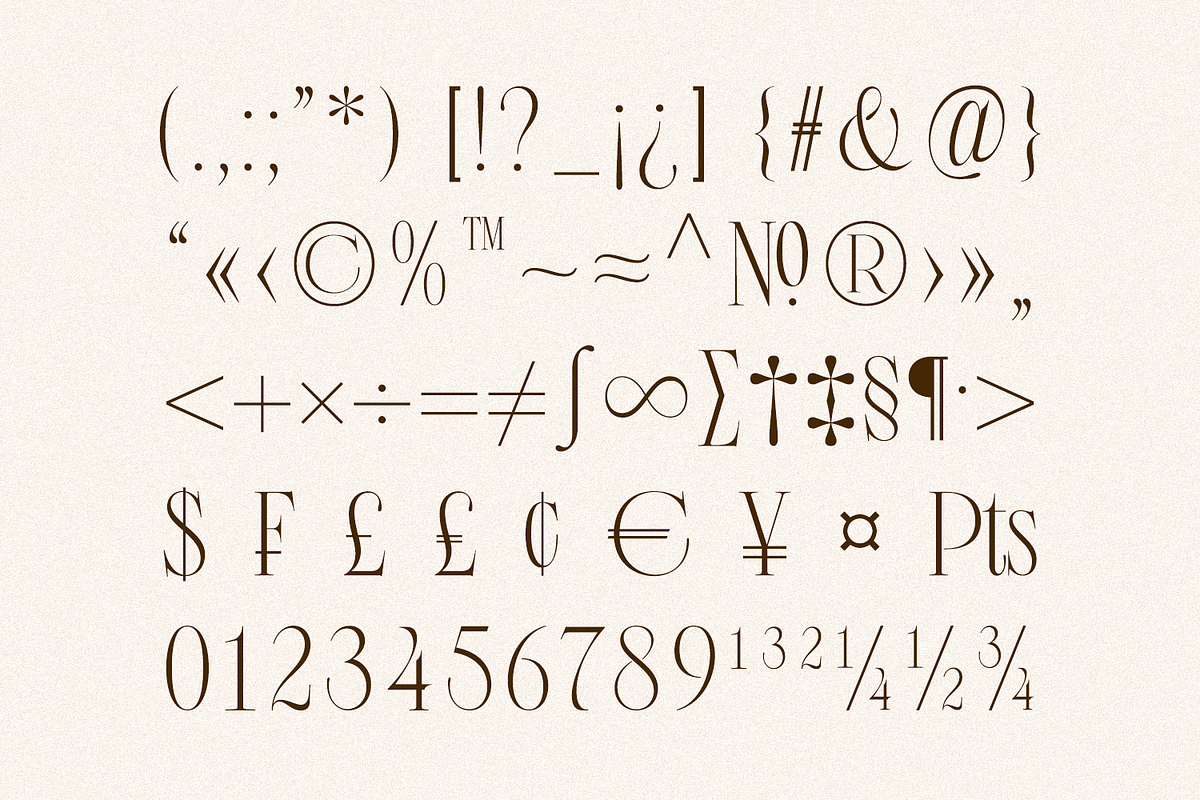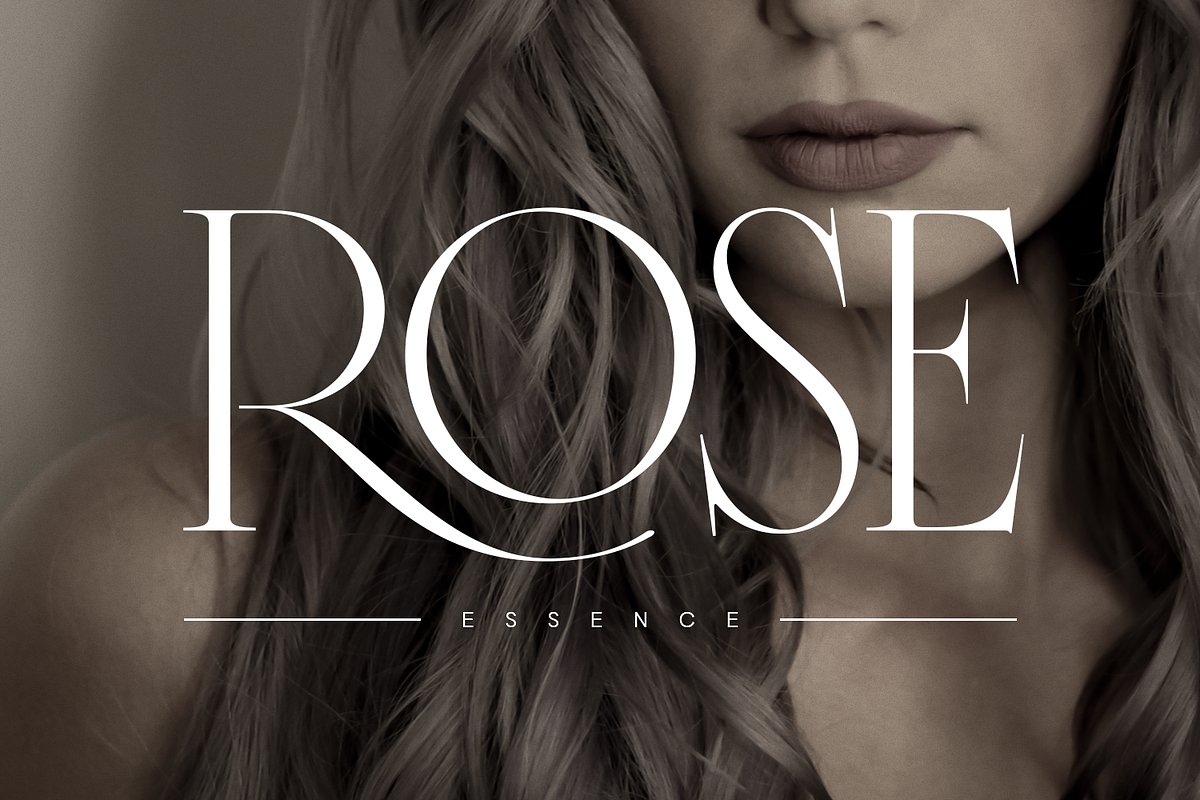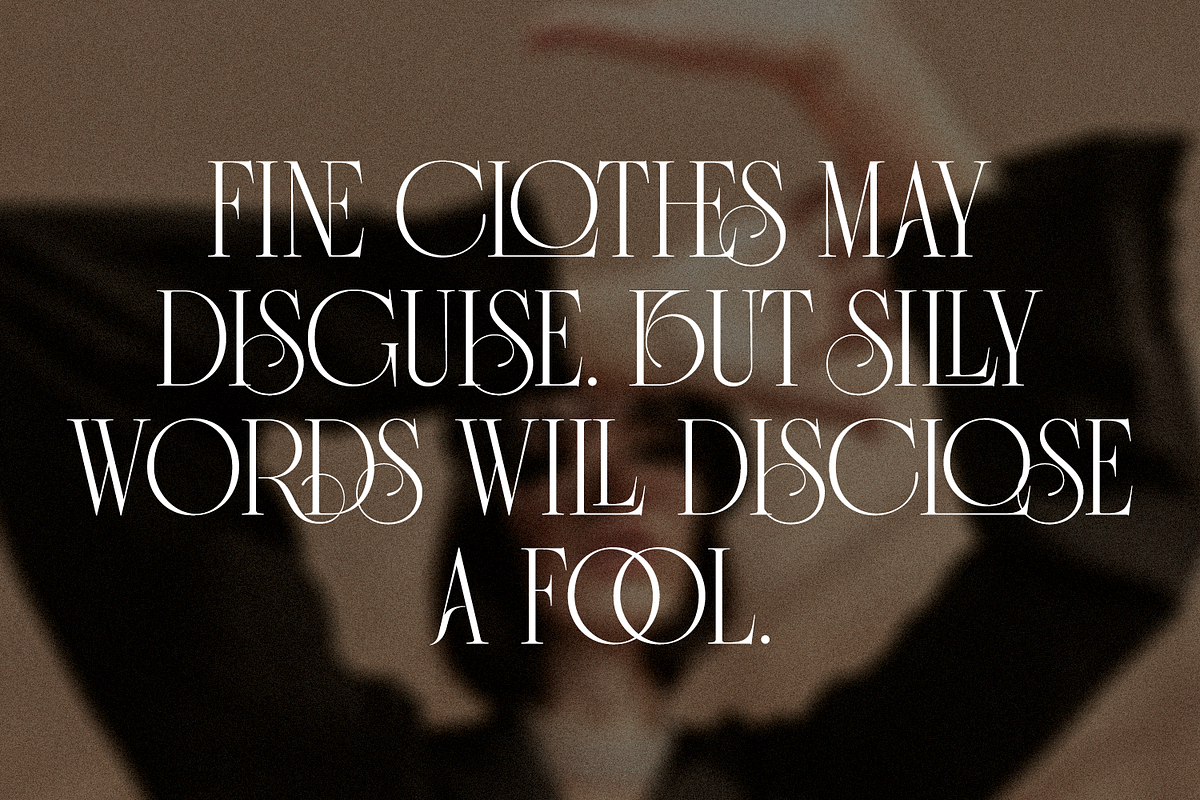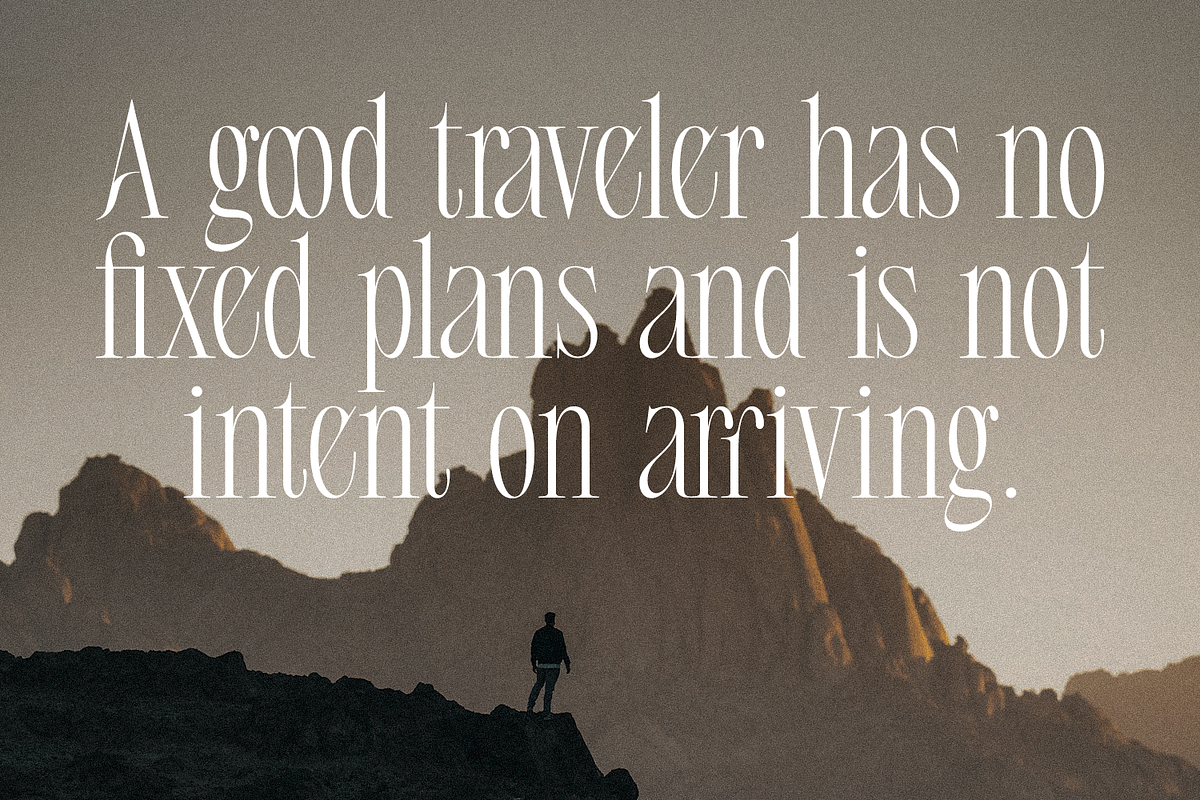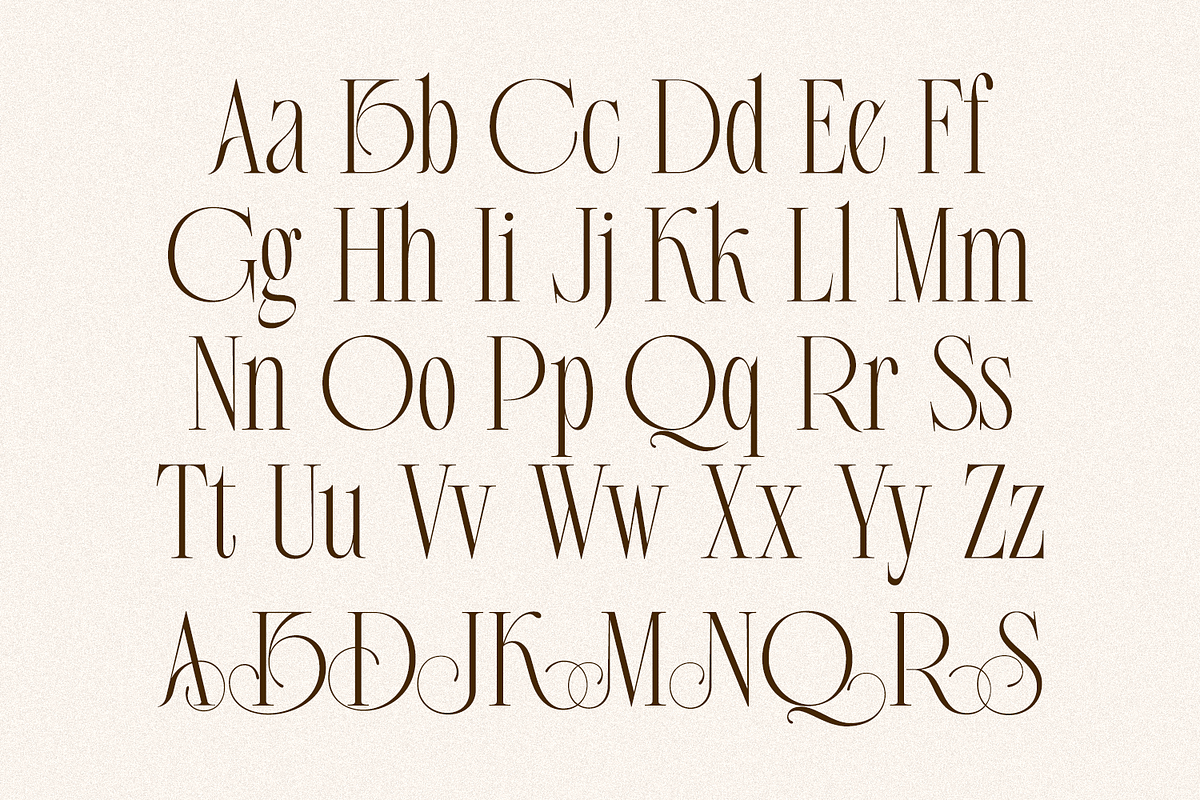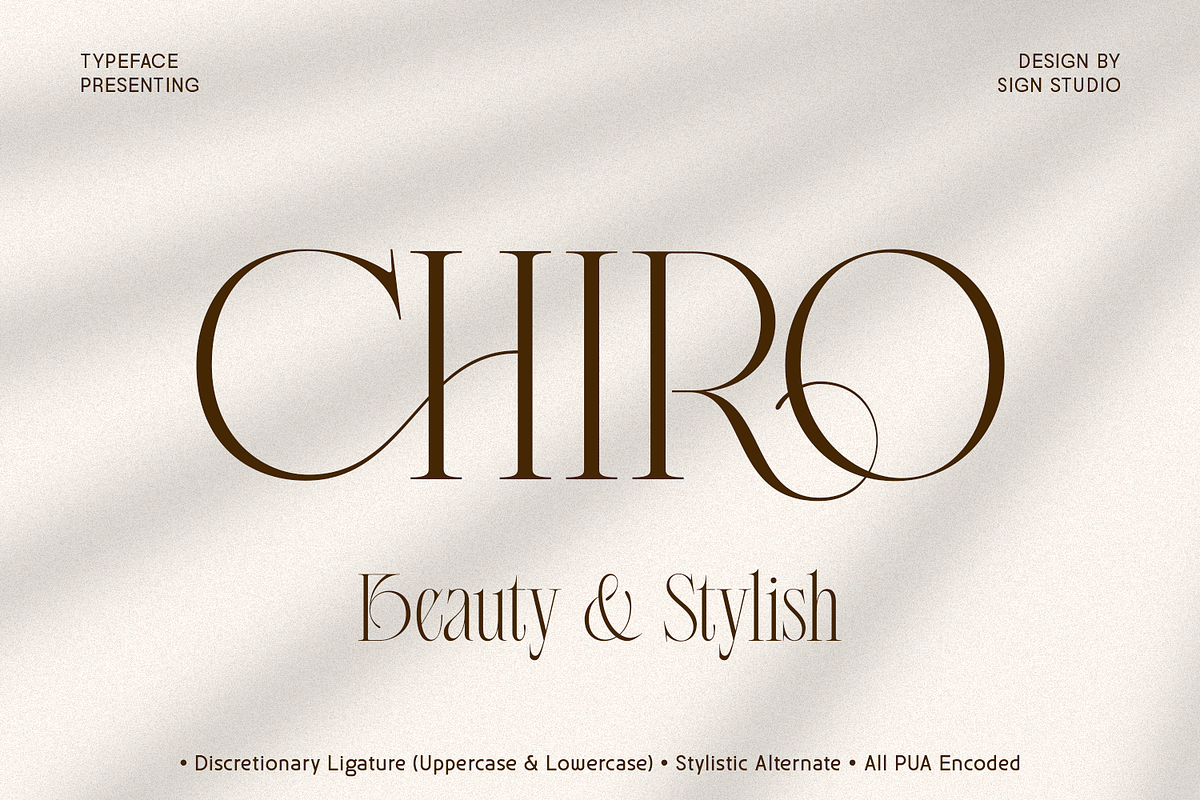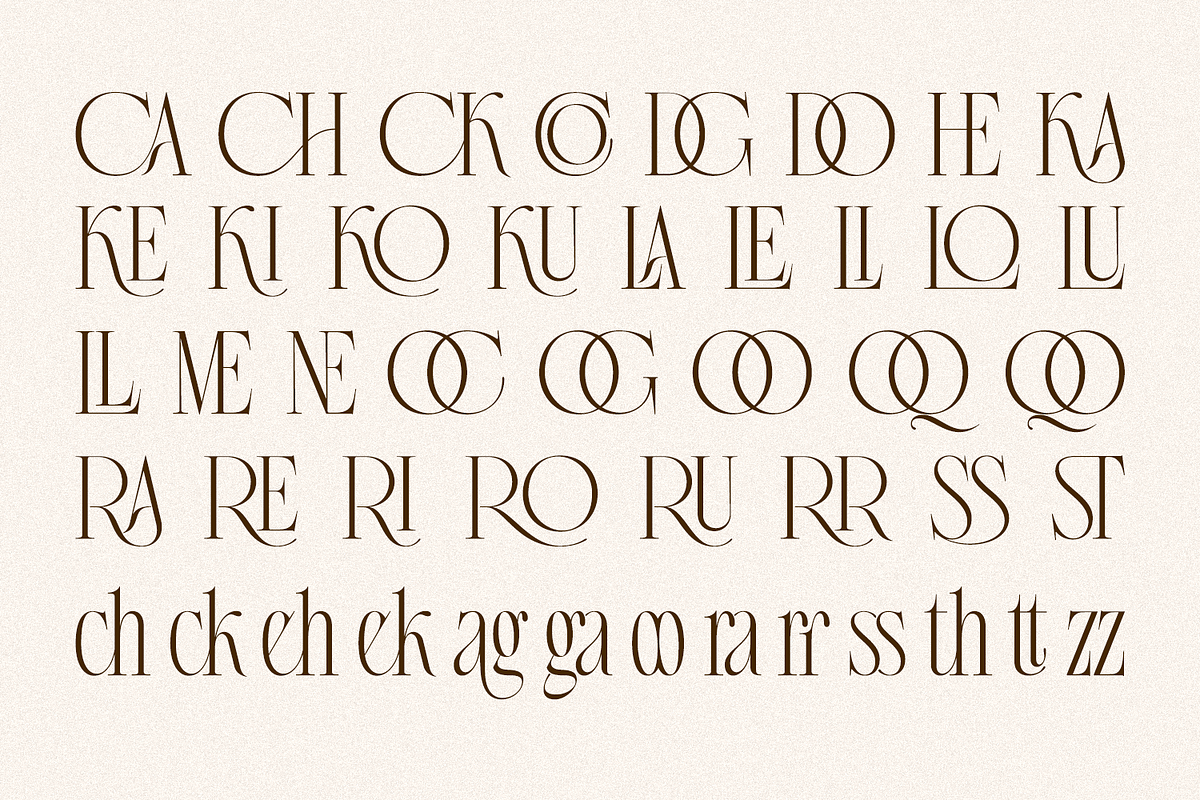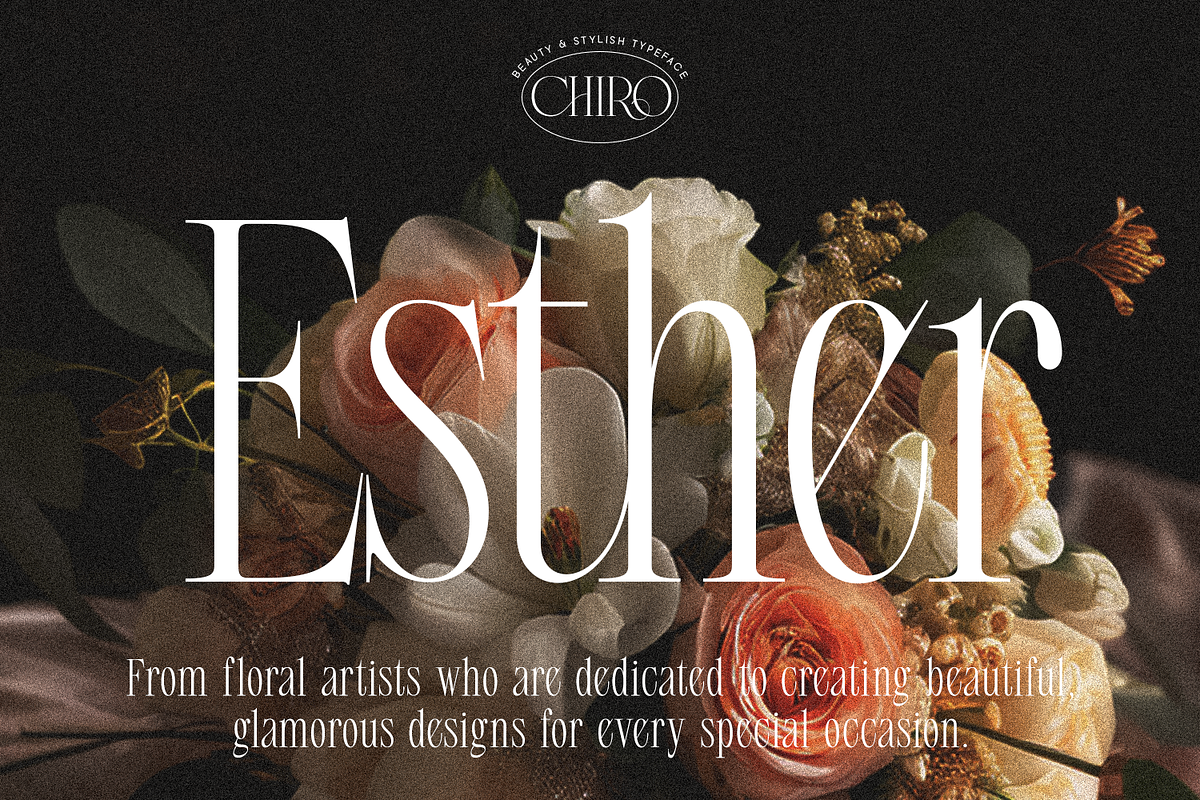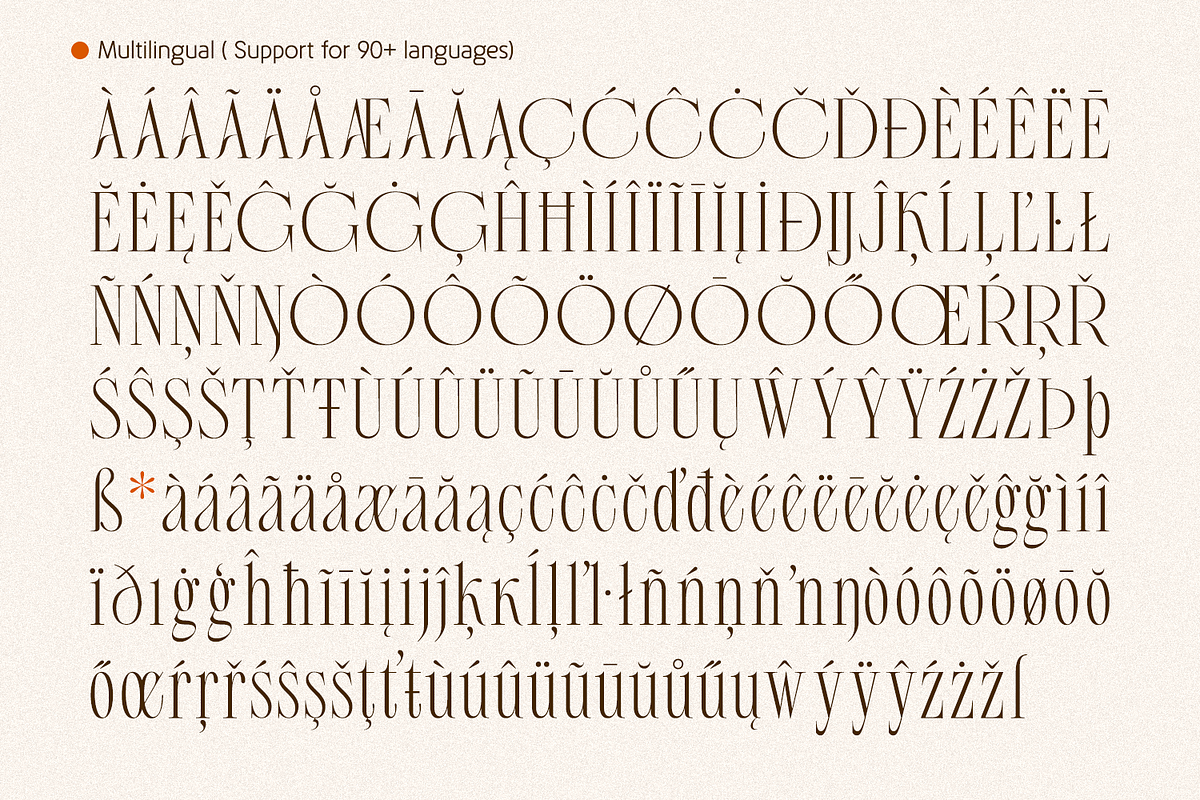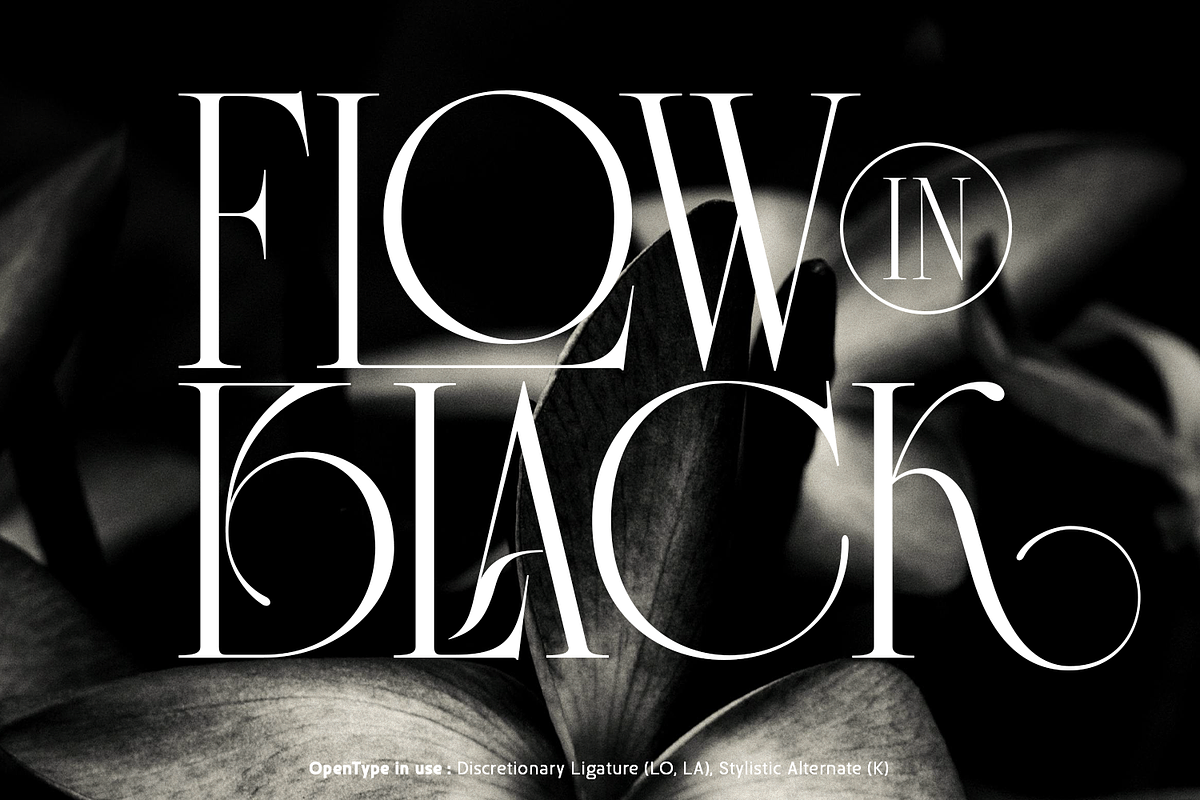
Chiro
Chiro fonts, which belong to the serif family, are characterized by their aesthetic appeal and stylistic elegance. It presents a synthesis of classic and modern elements. The distinctive features of each design are the characters created with moderate contrast, discretionary ligatures, and alternate characters.
The design is intended to achieve a high level of visual harmony. It is evident that Chiro possesses a considerable degree of aesthetic value, characterised by a clean and elegant design. The font has been designed with the dual objective of providing an aesthetically pleasing decorative element while simultaneously ensuring optimal legibility, which is a fundamental tenet of all Sign Studio's creations.
The following OpenType features are available for use: The standard and discretionary ligatures, as well as the alternative characters, are available for combination with a variety of designs.
The font's support for over 90 languages renders it an optimal communication tool for individuals seeking versatility and aesthetic appeal. Its versatility is evident in its beautiful design, good readability, and the various OpenType features that enhance its functionality. When employed in creative projects, this font can elevate the quality of personal or commercial endeavors.